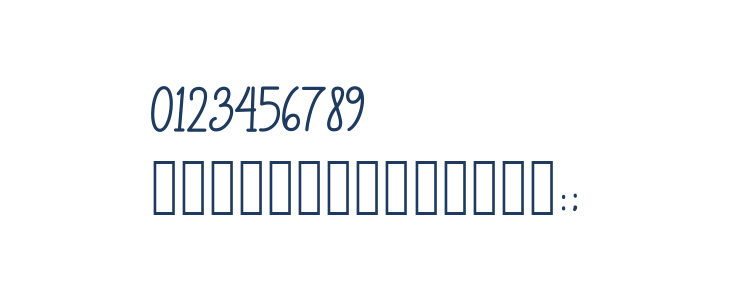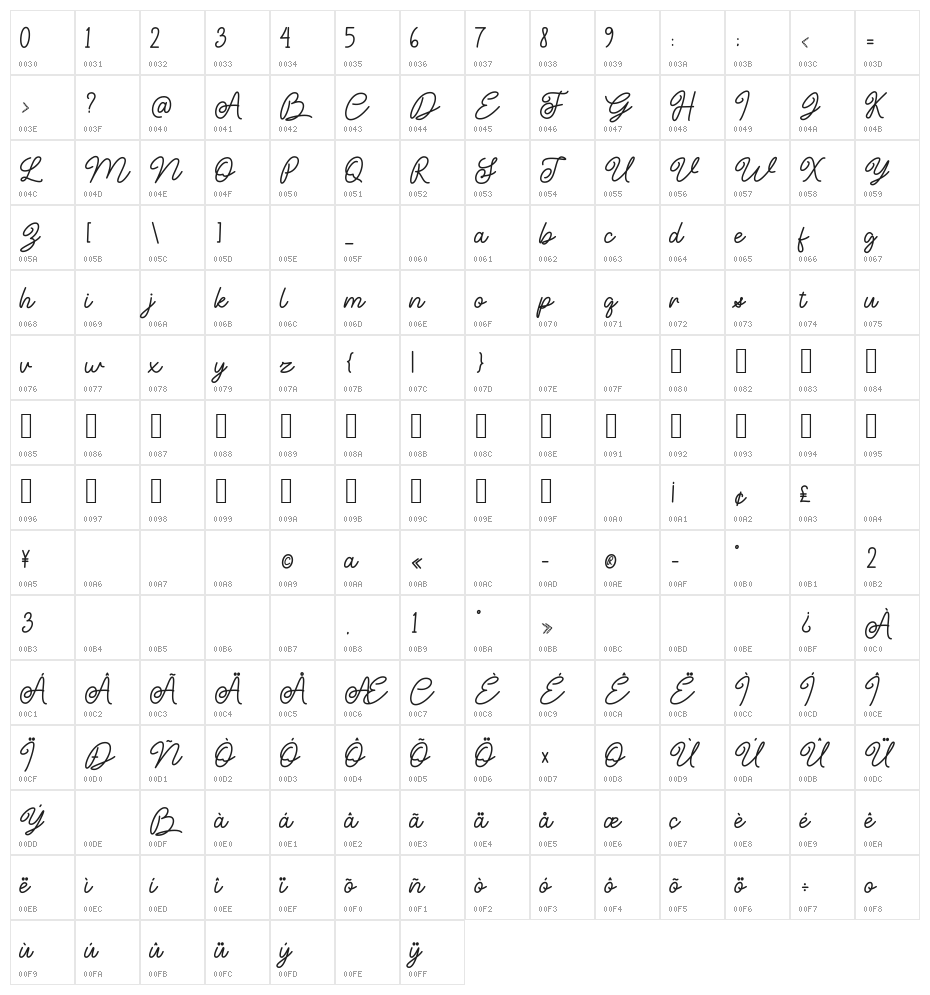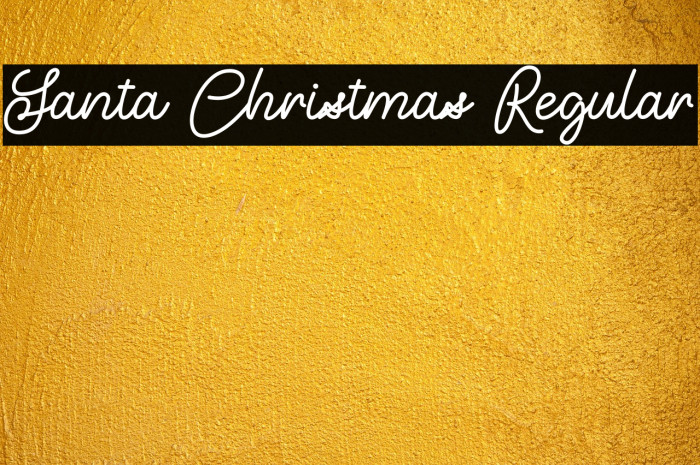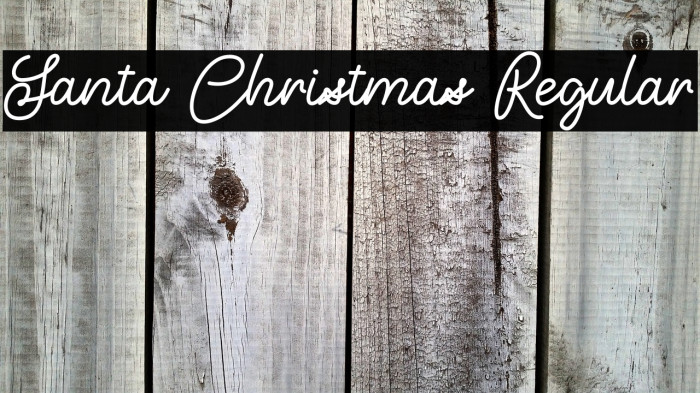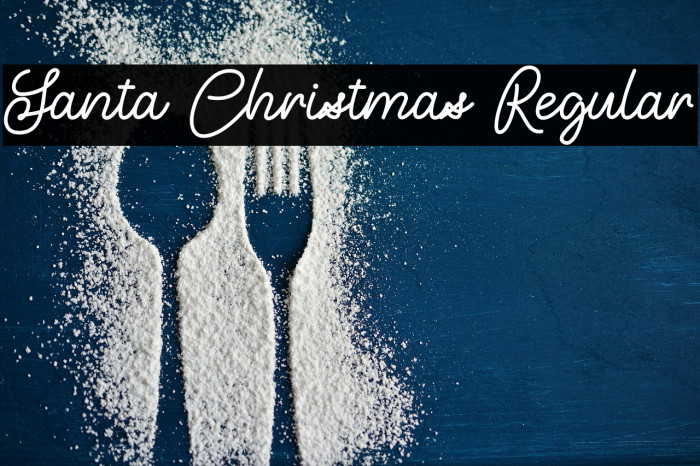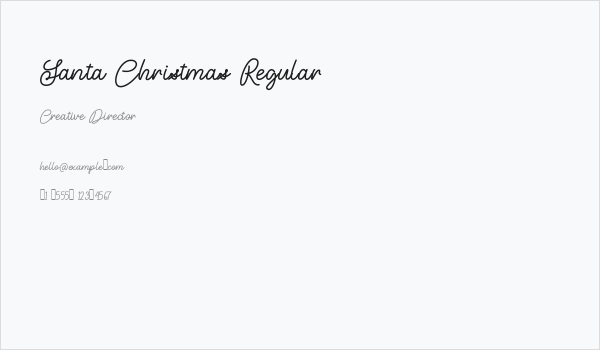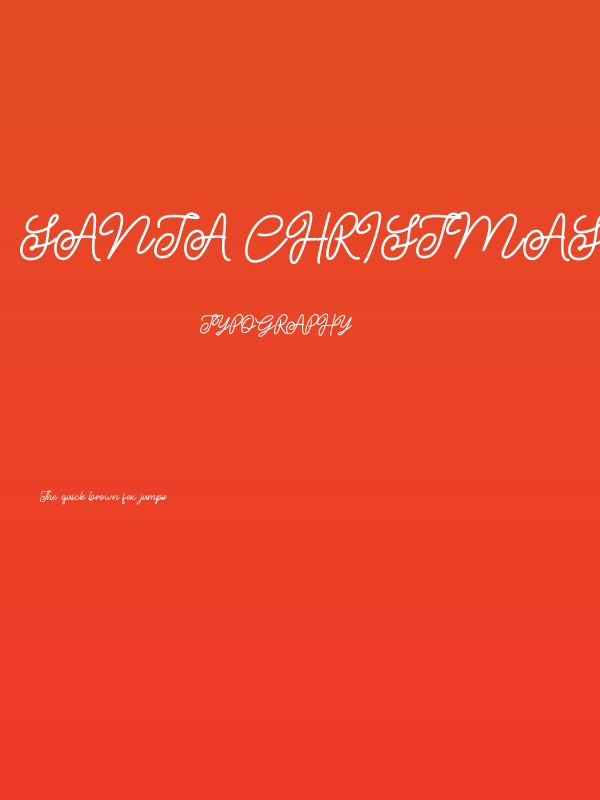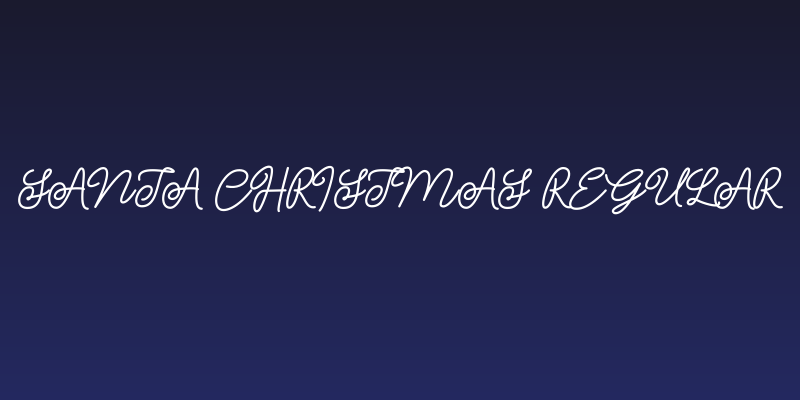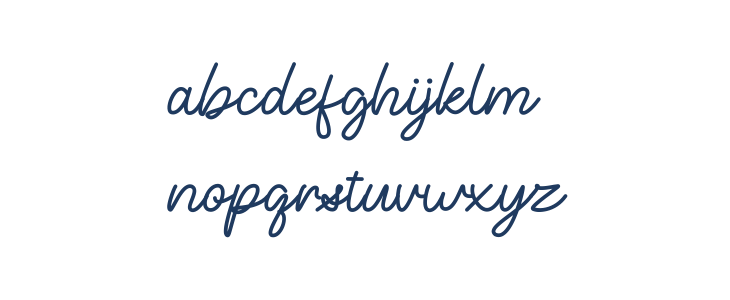
Santa Christmas Regular Font
Santa Christmas Regular Description
This font exudes a festive and playful charm, characterized by its flowing, cursive script style. The letters are elegantly connected, creating a sense of continuity and fluidity. The uppercase letters are slightly more ornate, with loops and swirls that add a whimsical touch. The lowercase letters maintain a consistent style, with smooth curves and a slight slant, enhancing readability while retaining a decorative flair. The numerals are clear and legible, matching the overall script style. Special characters are integrated seamlessly, maintaining the font's cohesive aesthetic.
| Proposed Projects | Ideal for holiday cards, festive invitations, branding for seasonal products, and decorative signage. |